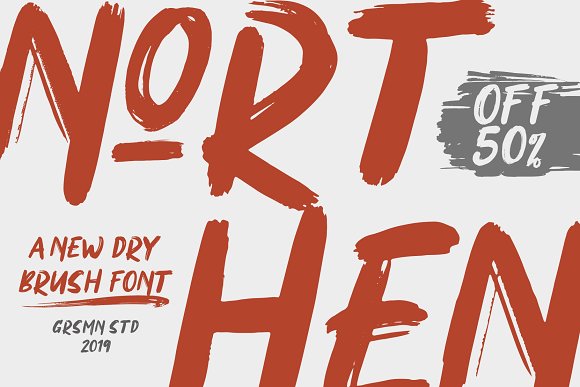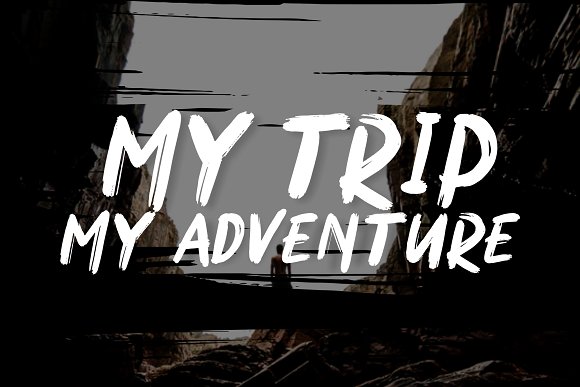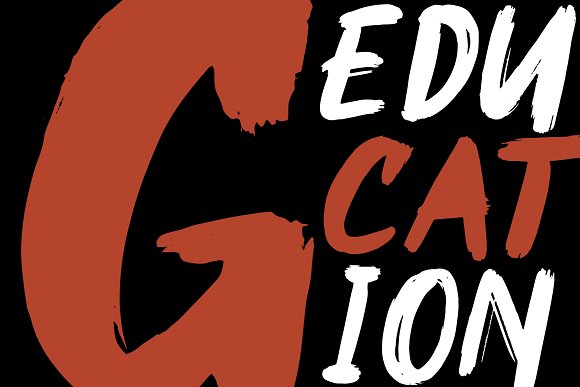
Northen Brush Font
NORTHEN combines attractive curves with a fresh urban edge; delivering a stylish script which is guaranteed to add an eye-catching appeal to your logo designs, brand imagery, handwritten quotes, product packaging, merchandise & social media posts